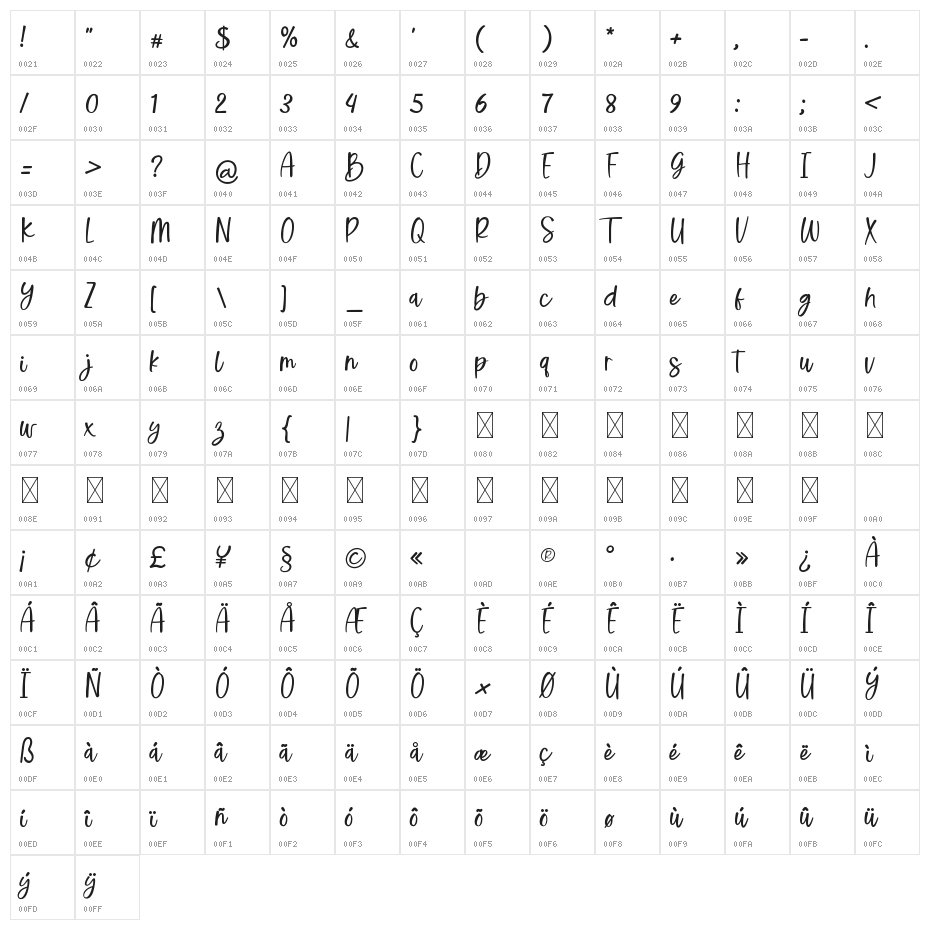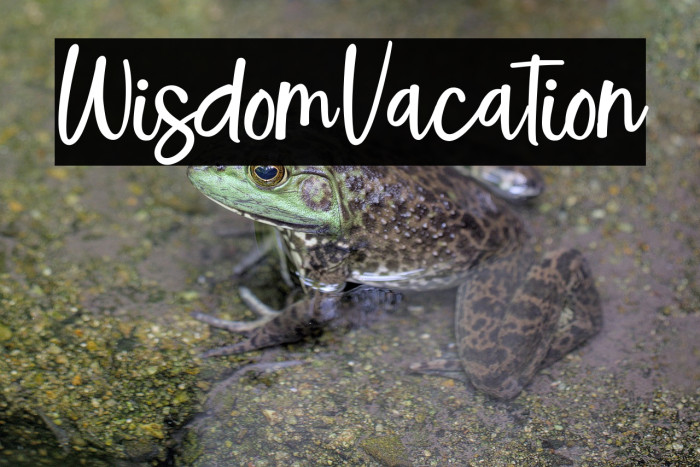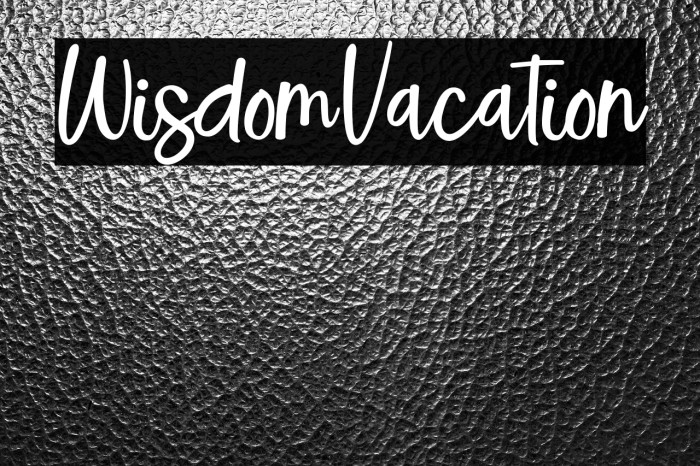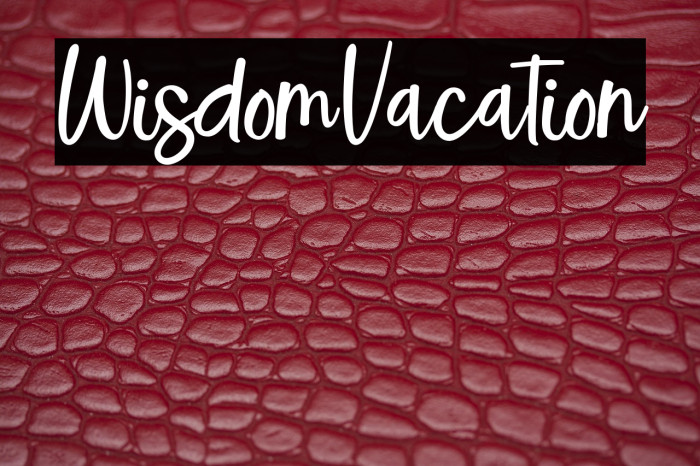
WisdomVacation Font
WisdomVacation Description
This font features a playful and casual handwritten style, characterized by its flowing and slightly irregular strokes. The uppercase letters are bold and prominent, while the lowercase letters maintain a consistent flow, adding to the font's informal charm. The numerals are clear and easy to read, complementing the overall style. Special characters are well-integrated, maintaining the font's cohesive appearance. The font's design is both approachable and versatile, making it suitable for a variety of creative projects.
| Proposed Projects | Ideal for greeting cards, invitations, social media graphics, and personal branding. |